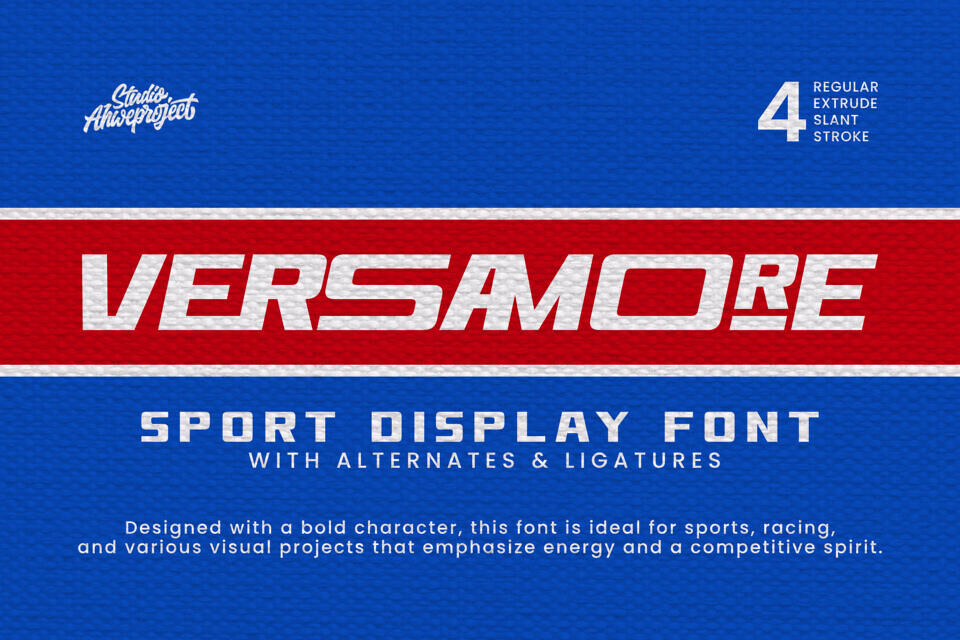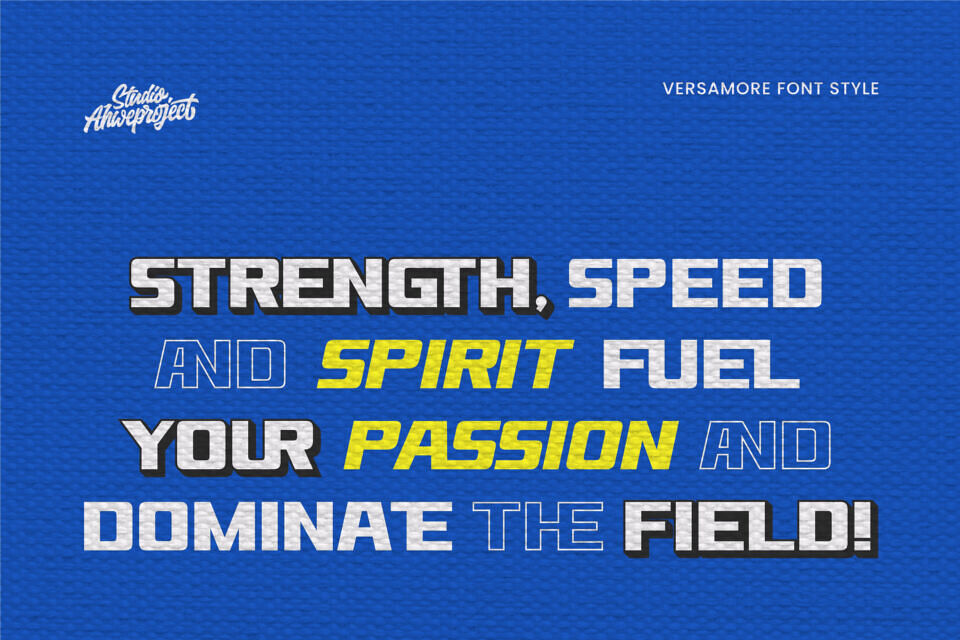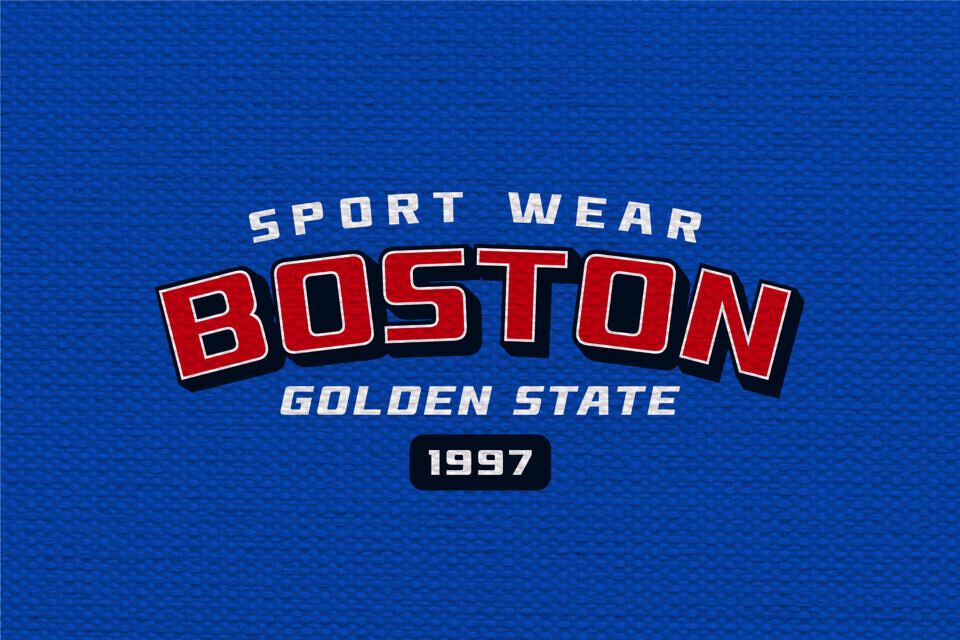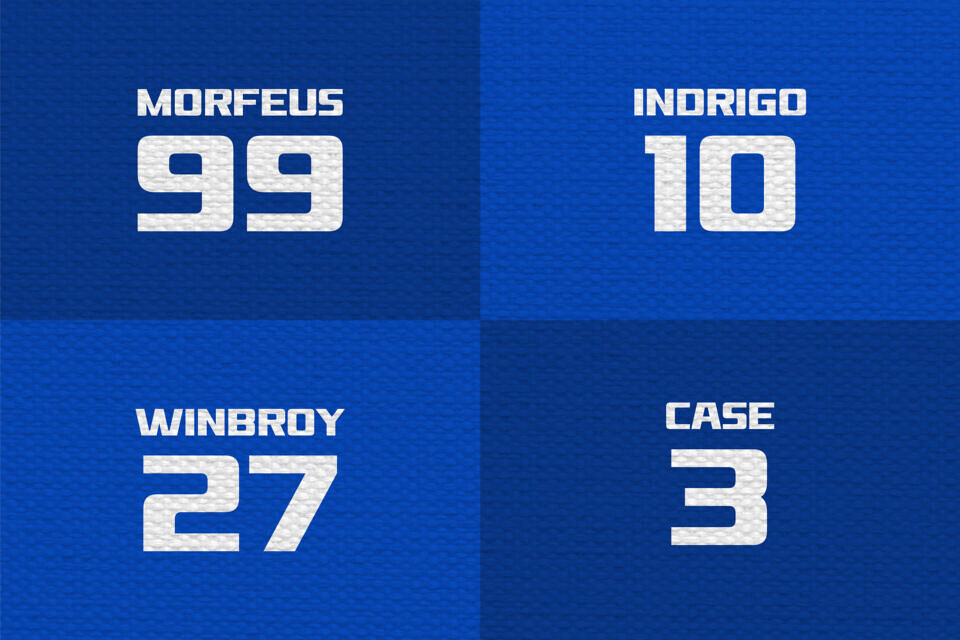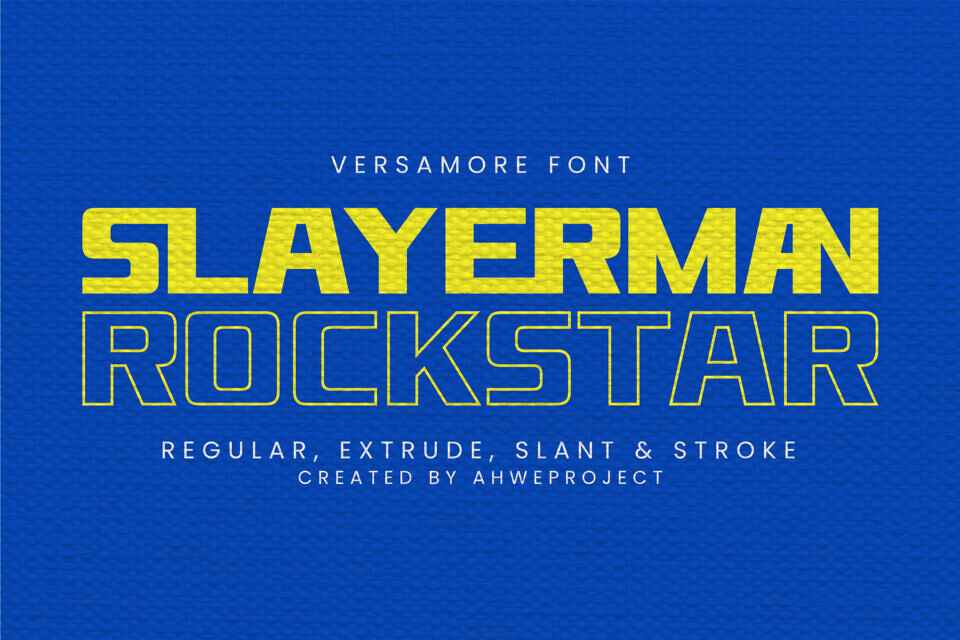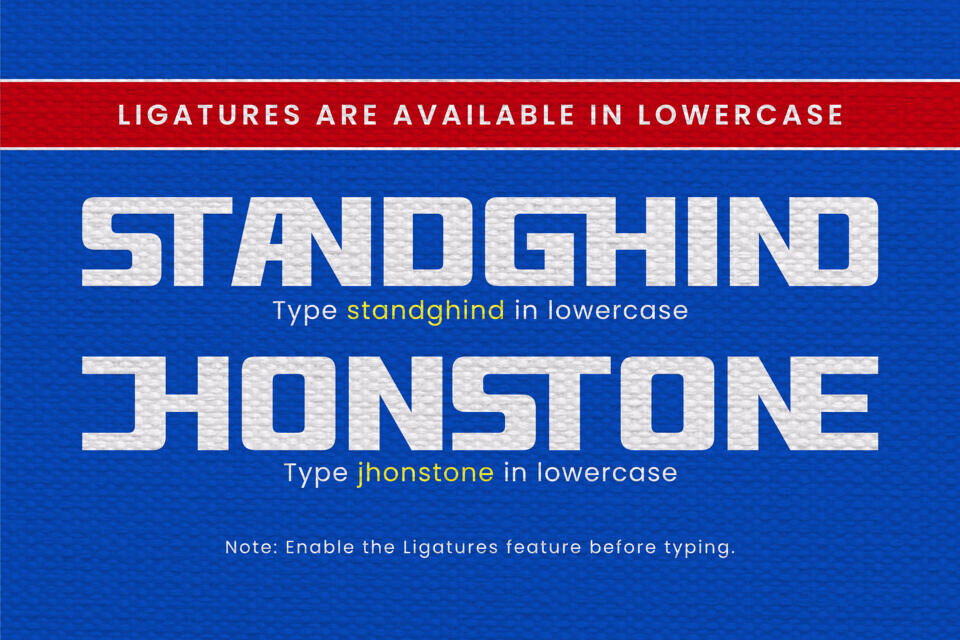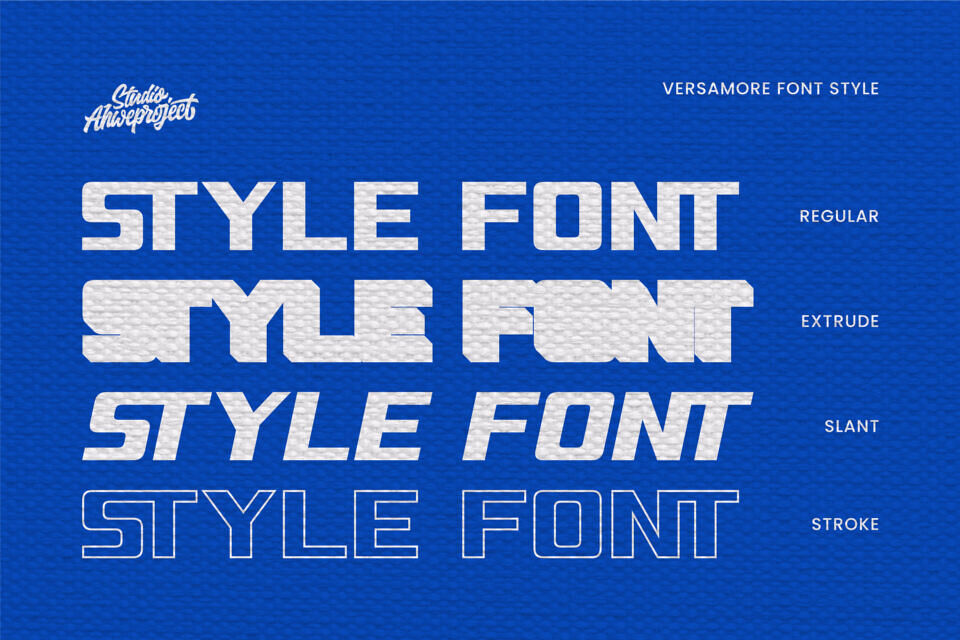
Versamore Font
Versamore is a modern sport-themed display font designed to bring energy, speed, and competitive spirit into your projects.
With its bold, dynamic, and masculine look, this font is perfect for sports branding, racing, esports, and any promotional designs that demand a strong visual impact.